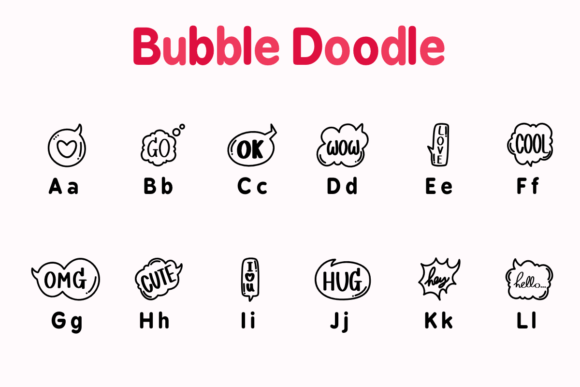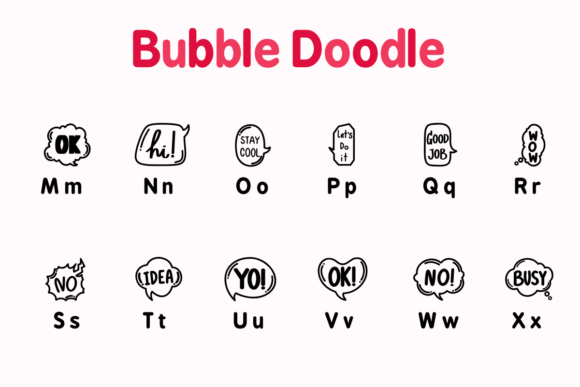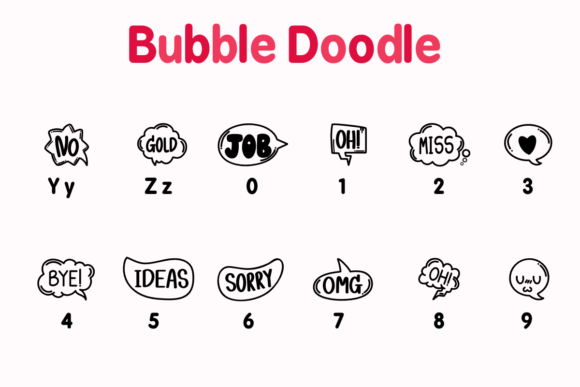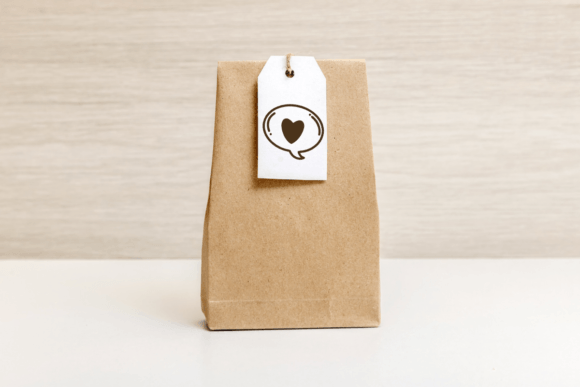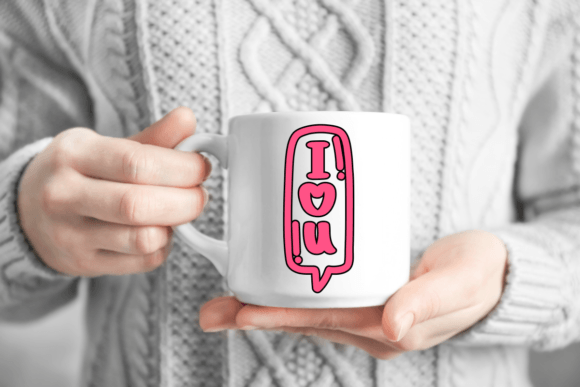
Bubble Doodle Font: Add a Whimsical Touch to Your Designs
Are you looking for a font that can add a playful and fun element to your designs? Look no further than the Bubble Doodle Font! This unique font is filled with cute speech bubbles, making it perfect for designers and crafters who want to create charming graphics and make their text stand out.
What is Bubble Doodle Font?
Bubble Doodle Font is a fun and playful font that features unique speech bubbles for each character. This means that every letter, number, and symbol is designed to look like a cute speech bubble, adding a whimsical touch to any design or message. The font is perfect for a variety of projects, from social media graphics and posters to invitations and crafts.
Key Features of Bubble Doodle Font
- Unique Speech Bubbles: Each character in the font is a unique speech bubble, ensuring that your text stands out and adds a playful element to your designs.
- Whimsical Design: The font’s whimsical design makes it perfect for creating charming graphics and adding a touch of personality to your messages.
- Versatile: The font can be used for a variety of projects, from digital designs to print crafts.
Uses for Bubble Doodle Font
The Bubble Doodle Font is perfect for a wide range of projects, including:
- Social Media Graphics: Add a playful touch to your social media graphics, such as Facebook posts, Instagram stories, and Twitter headers.
- Posters and Flyers: Create eye-catching posters and flyers for events, promotions, and announcements.
- Invitations: Add a whimsical touch to your invitations for parties, weddings, and other special occasions.
- Crafts: Use the font to create handmade crafts, such as cards, gift tags, and scrapbook pages.
Tips for Using Bubble Doodle Font
Here are some tips for getting the most out of the Bubble Doodle Font:
- Experiment with Colors: The font looks great in a variety of colors, so don’t be afraid to experiment and find the perfect color scheme for your design.
- Mix and Match: Combine the Bubble Doodle Font with other fonts and graphics to create a unique and eye-catching design.
- Keep it Simple: Don’t overcomplicate your design – the Bubble Doodle Font is perfect for simple, yet effective designs.
The Bubble Doodle Font is a fun and playful font that can add a whimsical touch to any design or message. With its unique speech bubbles and easy-to-use design, it’s perfect for designers and crafters of all levels. Whether you’re creating social media graphics, posters, invitations, or crafts, the Bubble Doodle Font is sure to make your text stand out. So why not give it a try and see how you can use this fun and playful font to take your designs to the next level?